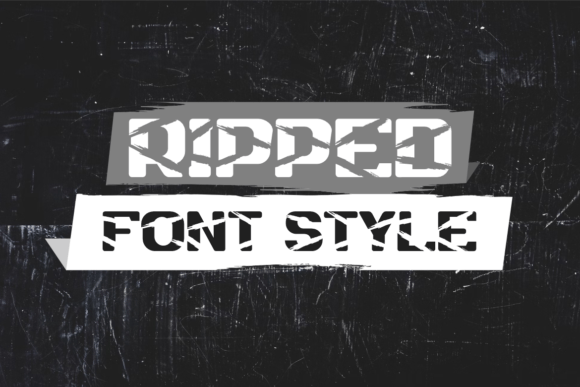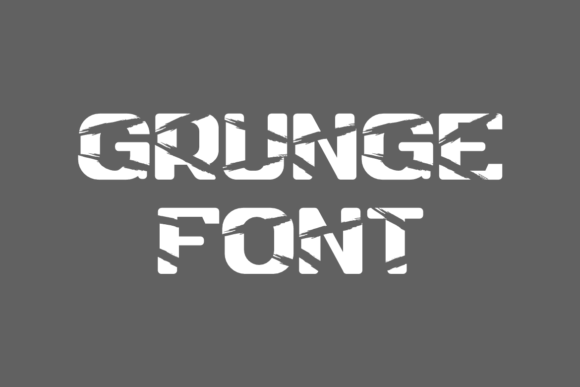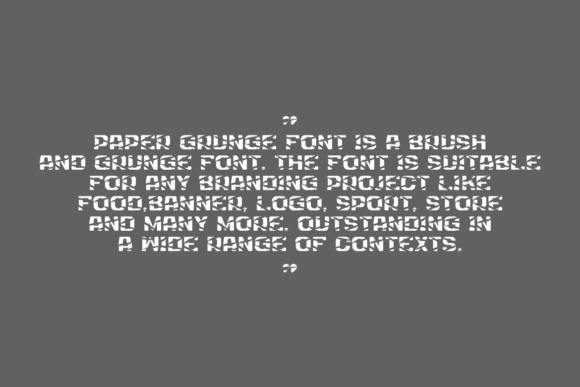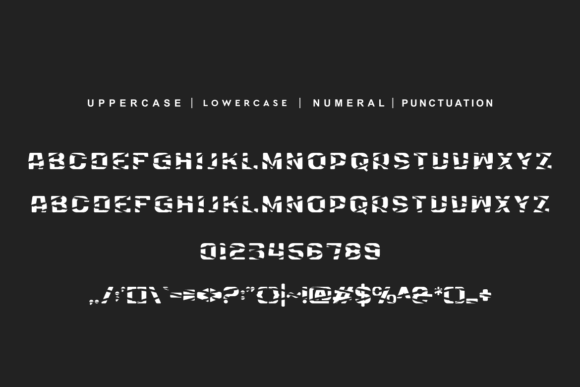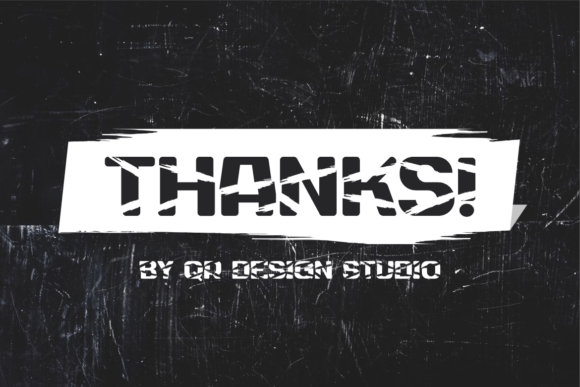
Introduction to Paper Grunge Font
Paper Grunge is a bold and authentic display font.
It is suitable for any branding project like logo, sport, and many more .
Key Features of Paper Grunge Font
Why Choose Paper Grunge Font?
Paper Grunge Font offers exceptional quality and versatility, making it a valuable addition to your design toolkit. Whether you’re creating for personal projects or commercial use, Paper Grunge Font delivers professional results.